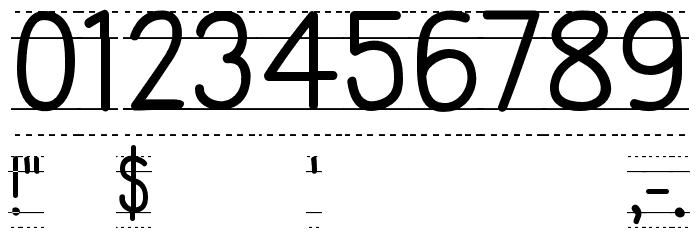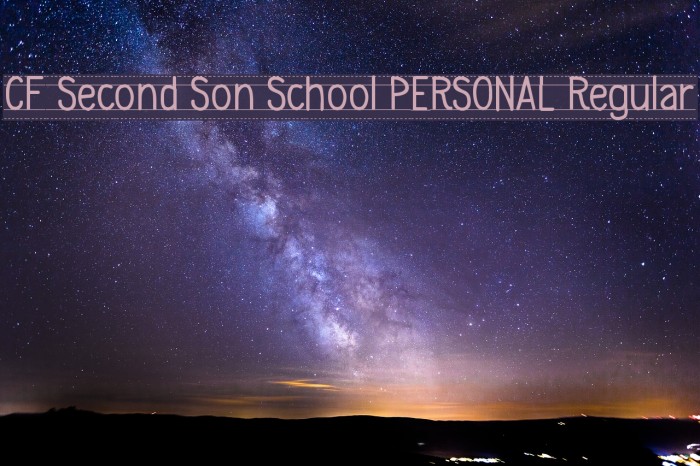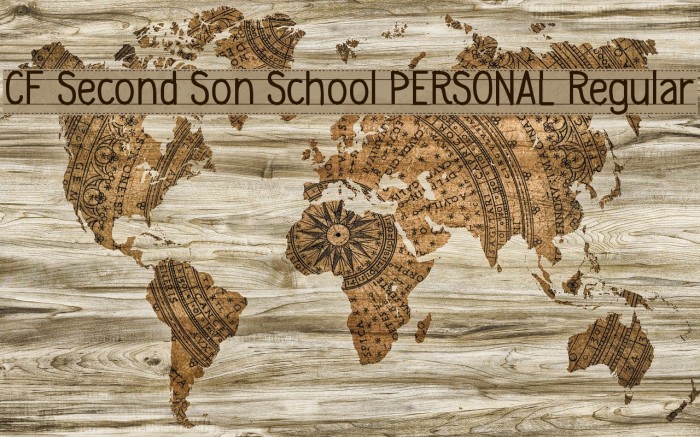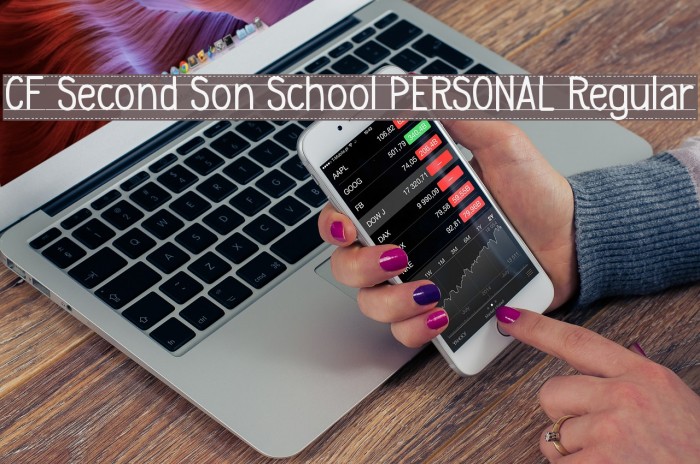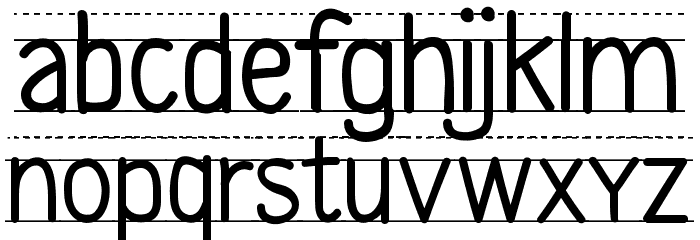
CF Second Son School PERSONAL Regular Font
CF Second Son School PERSONAL Regular Description
This font features a playful and educational style, reminiscent of handwriting practice sheets used in schools. The characters are tall and narrow, with a consistent stroke width that gives a clean and structured appearance. The uppercase letters are slightly more elongated compared to the lowercase, which maintains a uniform height. Numbers and special characters are designed to match the overall aesthetic, ensuring readability and coherence. The font's design is straightforward, making it ideal for educational materials, children's books, or any project that requires a friendly and approachable typeface.
A playful, school-inspired font with a clean, structured appearance from Uncategorized fonts.
- Proposed Projects: Ideal for educational materials, children's books, and playful design projects.
- Overall Style: Playful, Educational
- Use Case: Headlines, Educational materials, Children's books